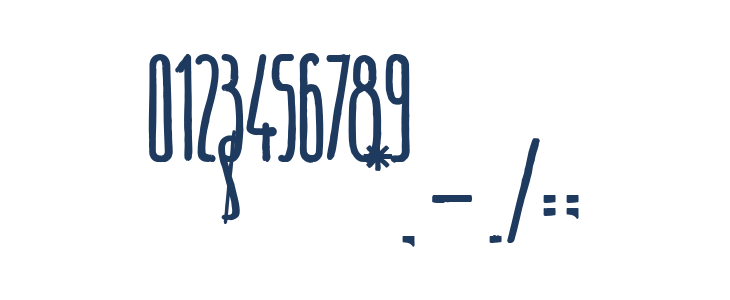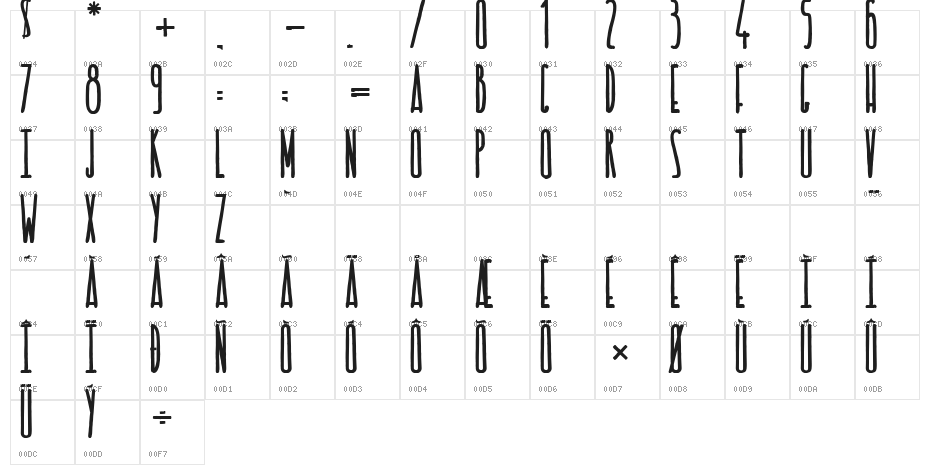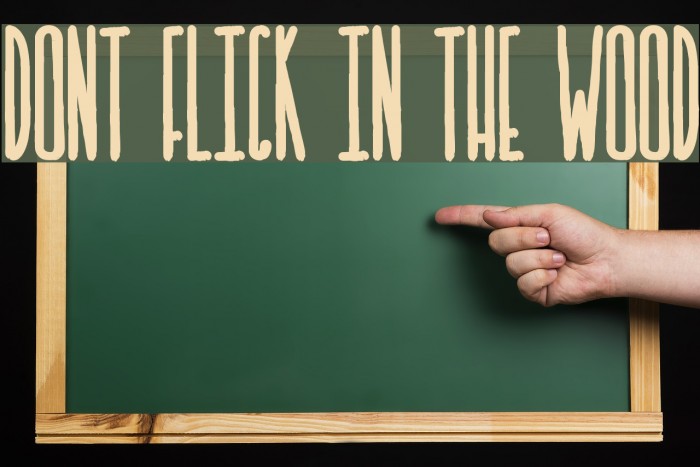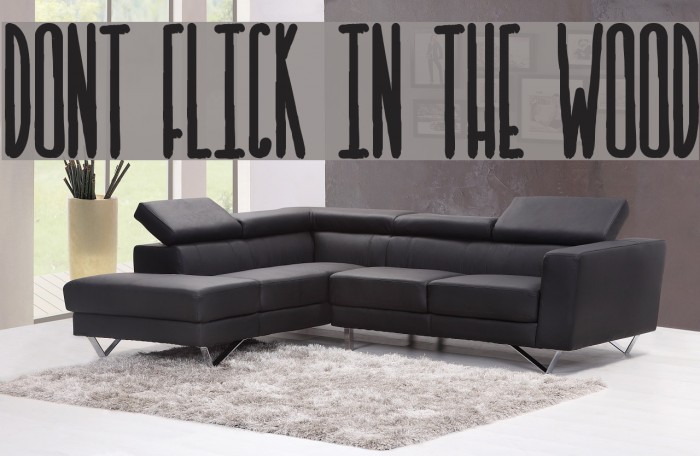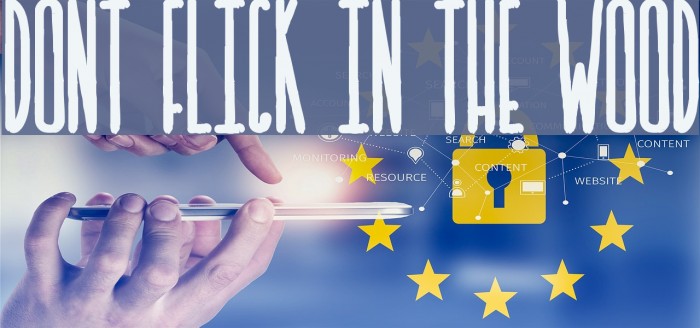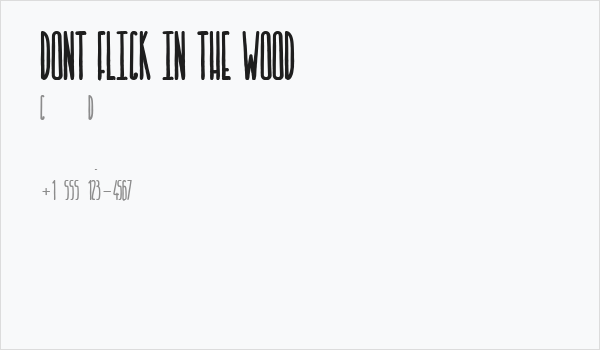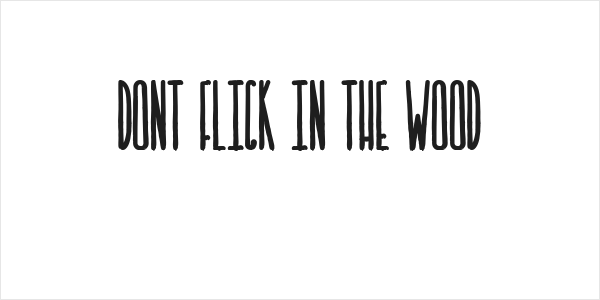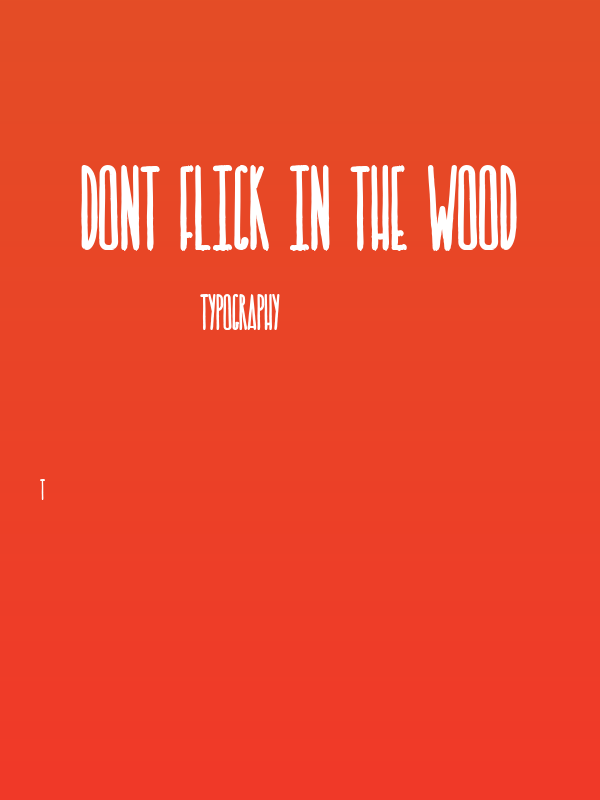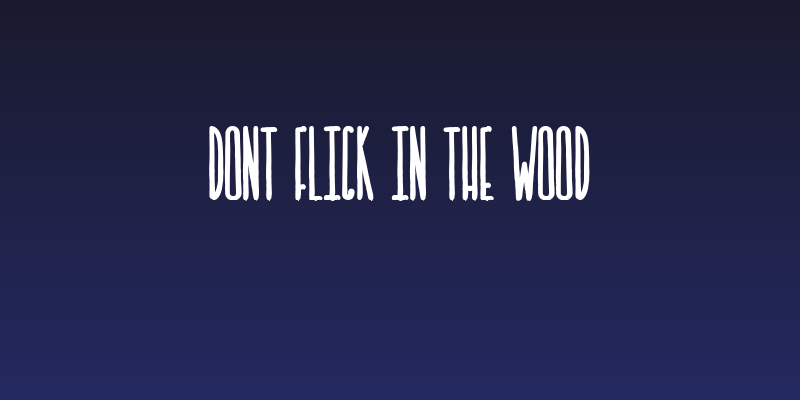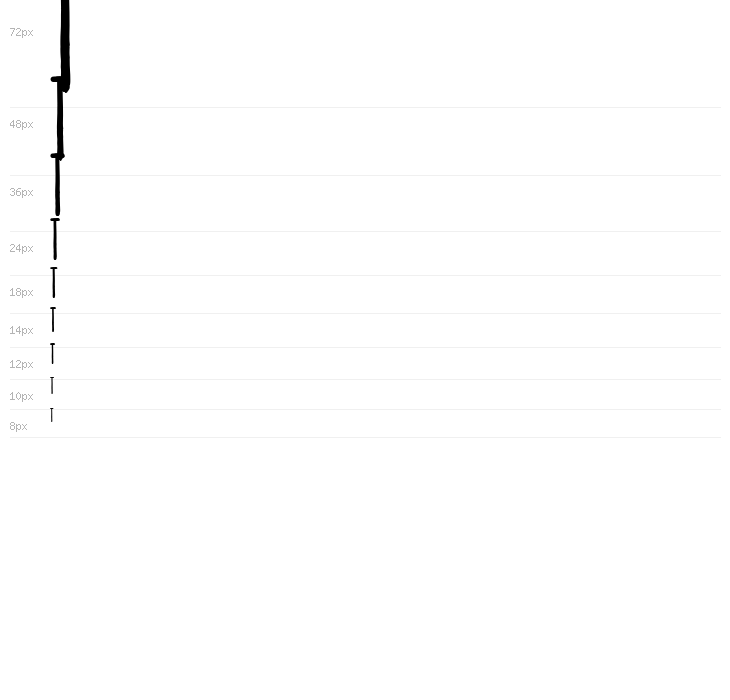
DONT FLICK IN THE WOOD Font
DONT FLICK IN THE WOOD Description
This font features an elongated and narrow design, with tall, slender characters that create a striking visual impact. The uppercase letters are particularly elongated, giving the font a unique and artistic appearance. The lowercase letters maintain a consistent style, complementing the uppercase with their own narrow form. Numbers and special characters follow the same design principles, ensuring uniformity across all glyphs. The font's overall aesthetic is bold and modern, with a touch of artistic flair that makes it stand out. Its distinctive style is suitable for projects that require a strong visual statement.
| Proposed Projects | Ideal for posters, album covers, branding projects, and any design requiring a bold visual statement. |